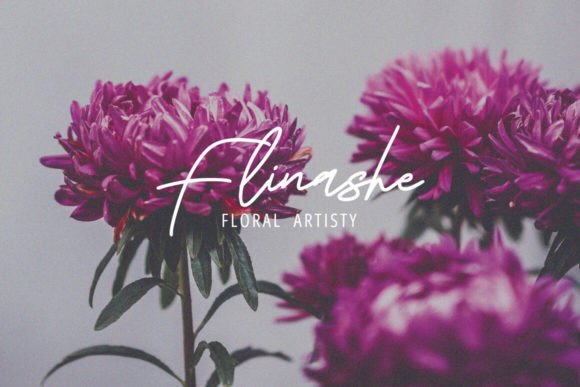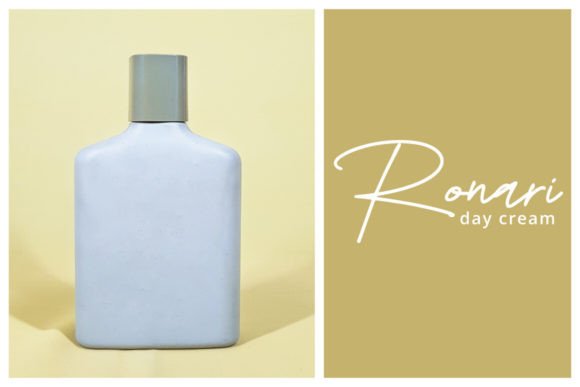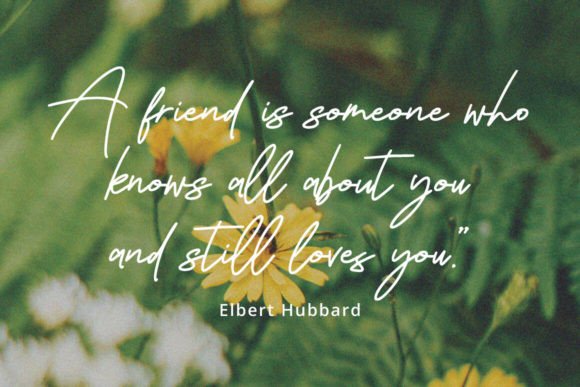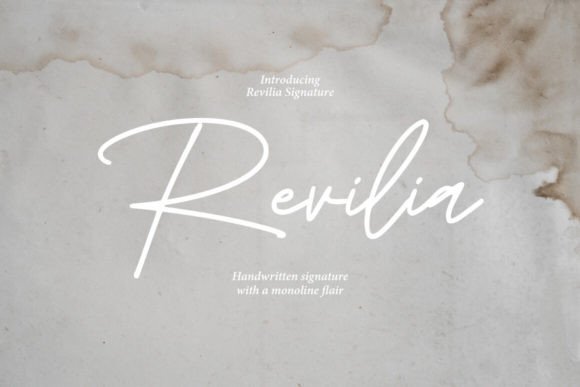
Introduction to Revilia Font
Revilia Signature with a handmade Signature style, decorative characters and a dancing baseline.
So beautiful on invitation like greeting cards, branding materials, business cards, quotes, posters, and more Reviliaa Signature come with 200+ glyphs.